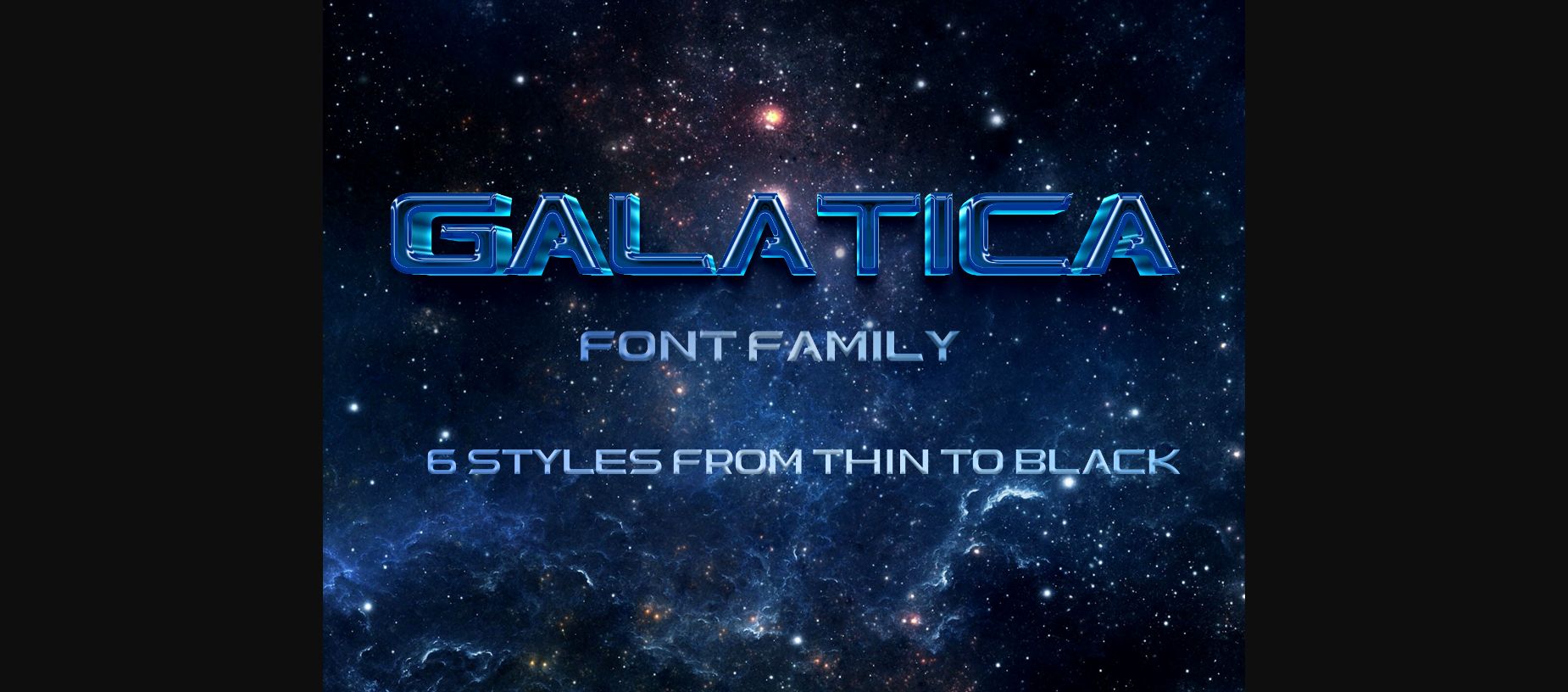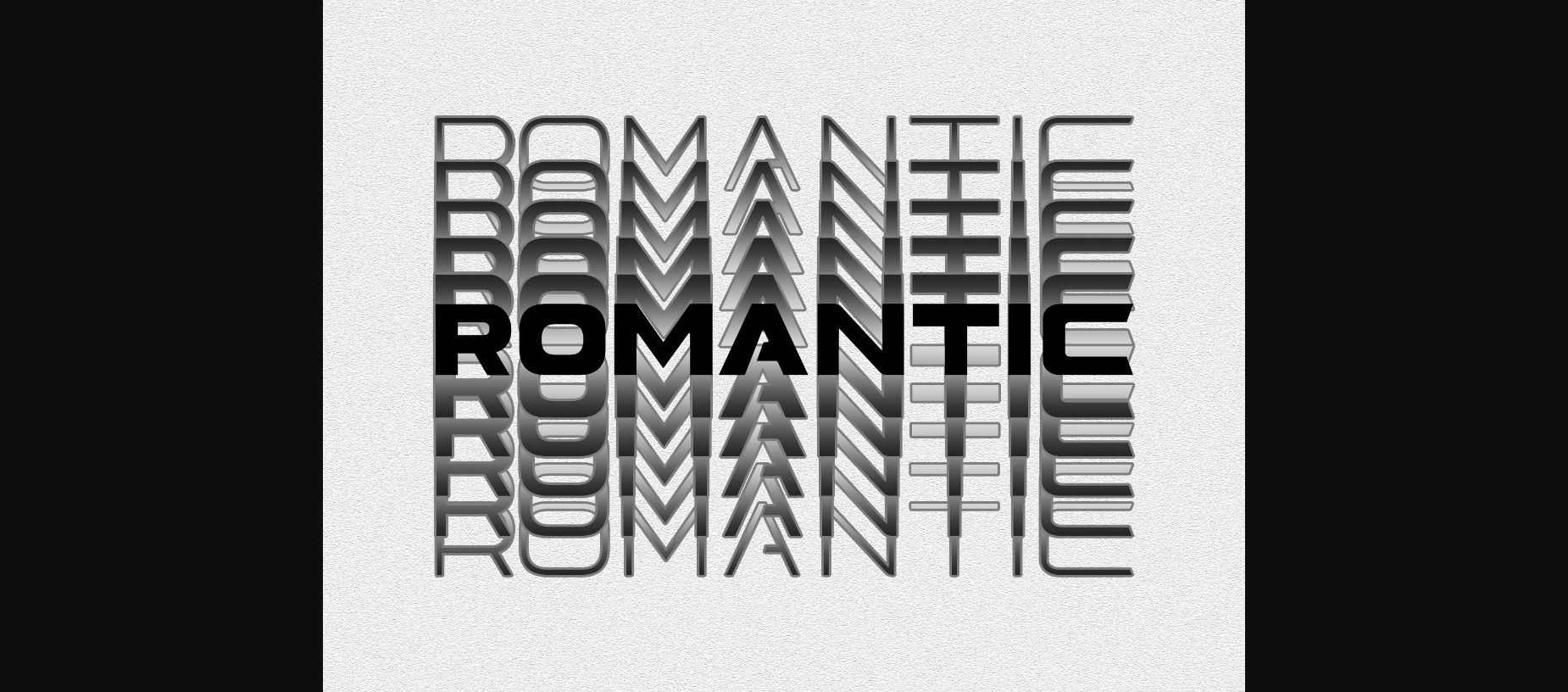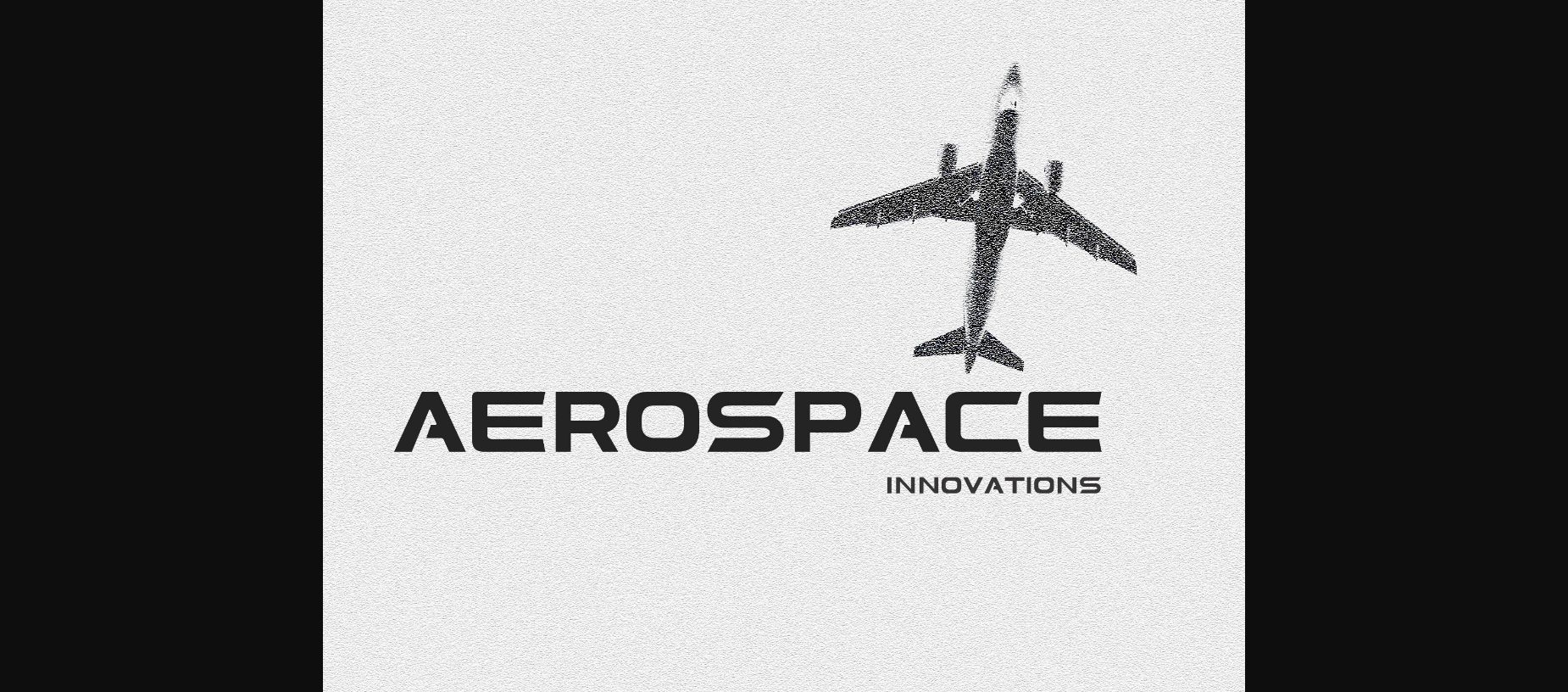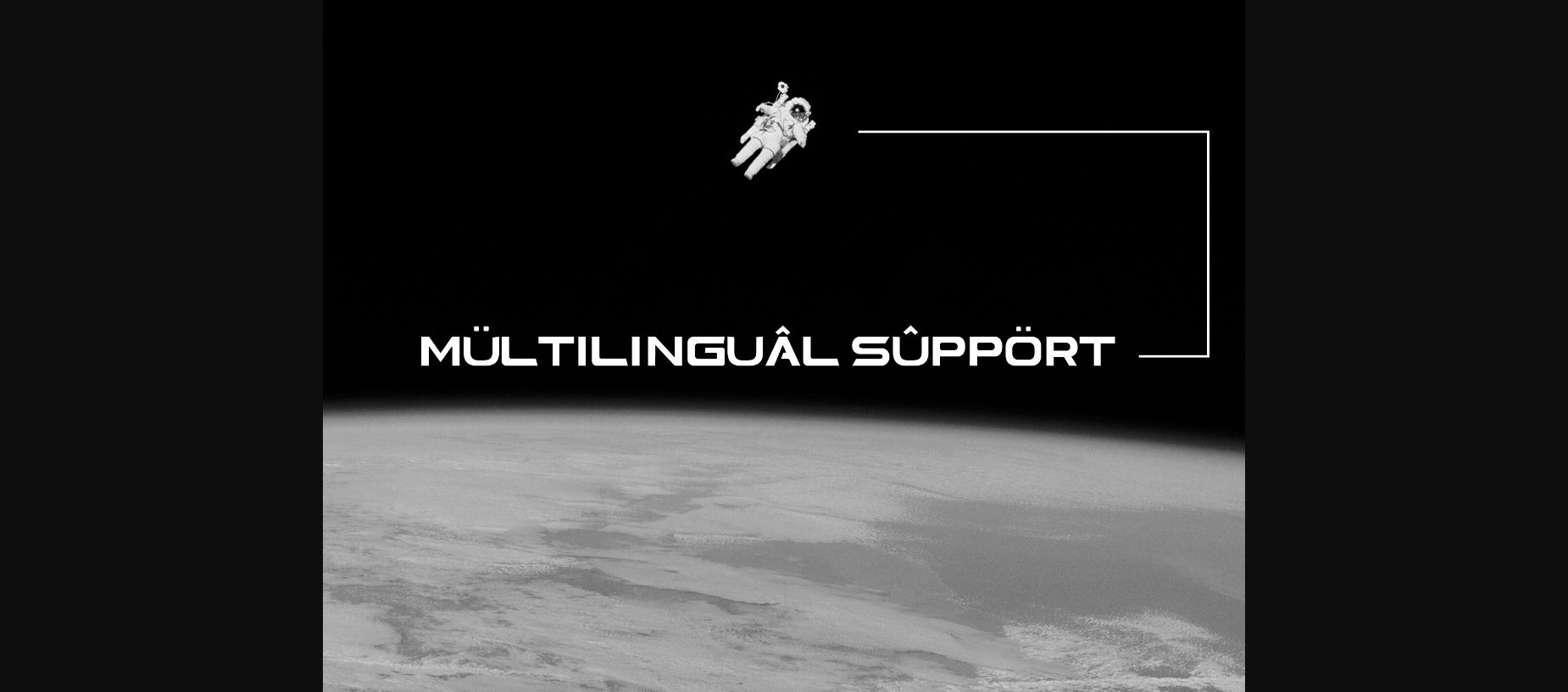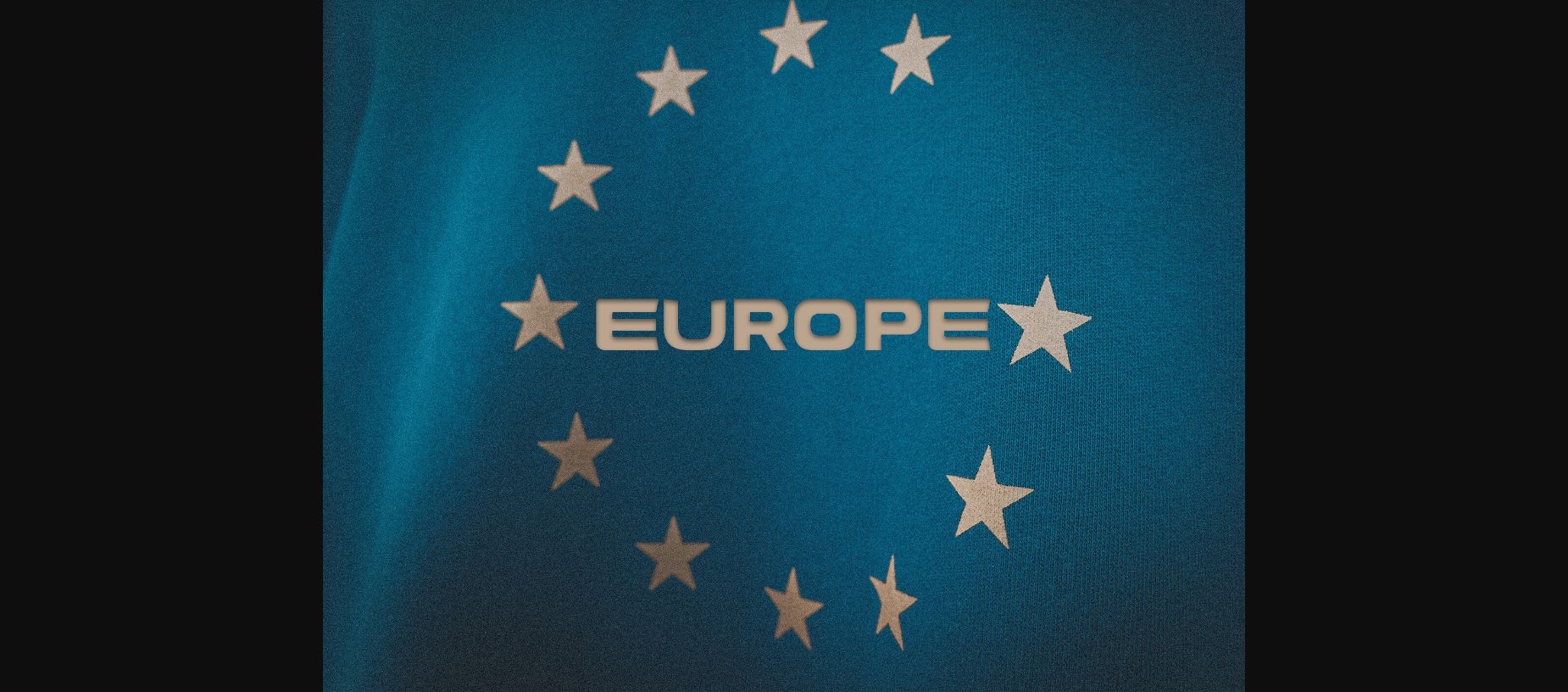
Galactica is an expanded sans serif typeface. This family includes 6 font styles from thin to black. The style is futuristic and thick with a modern style but simple and clearly suitable for various designs